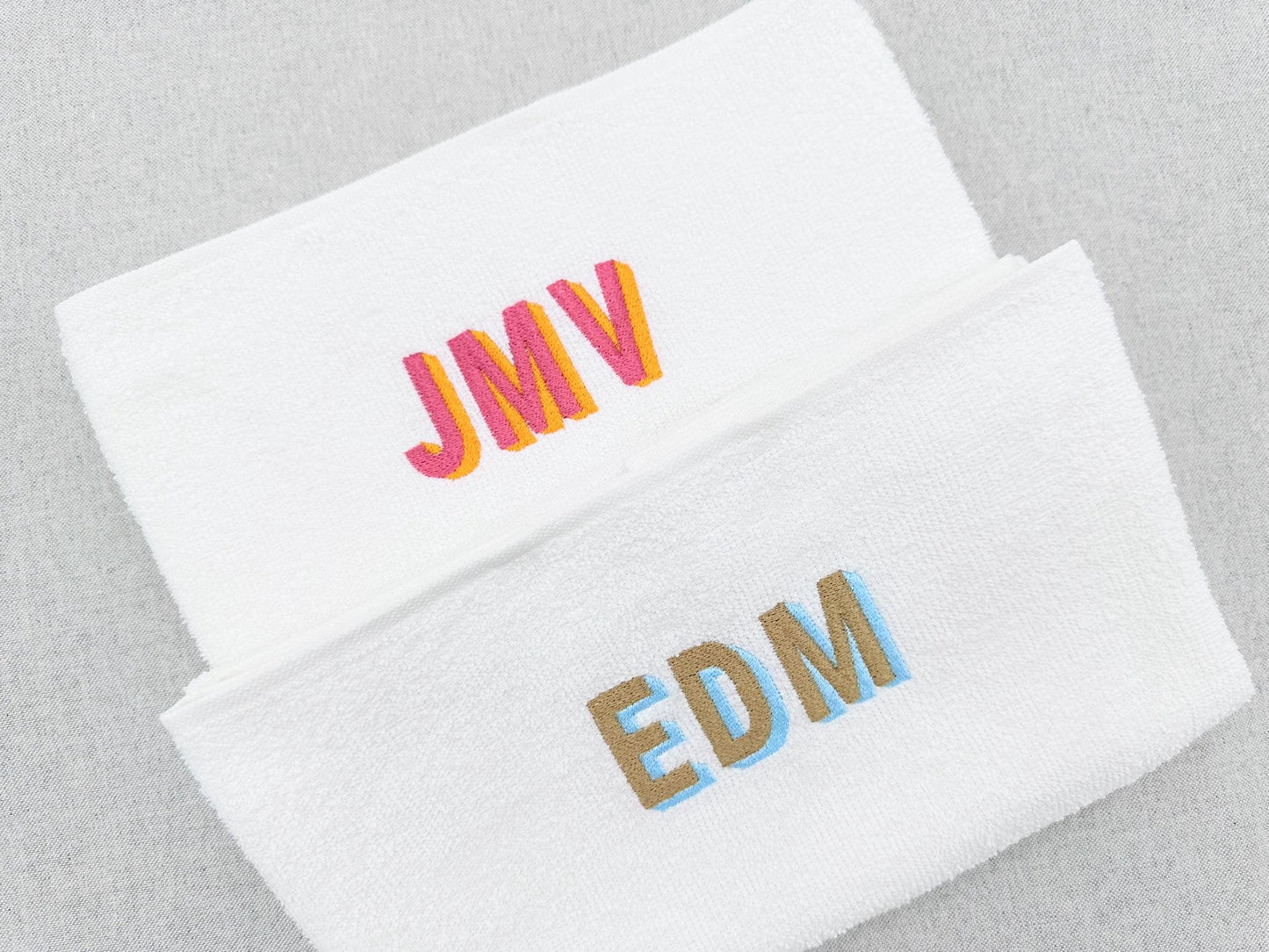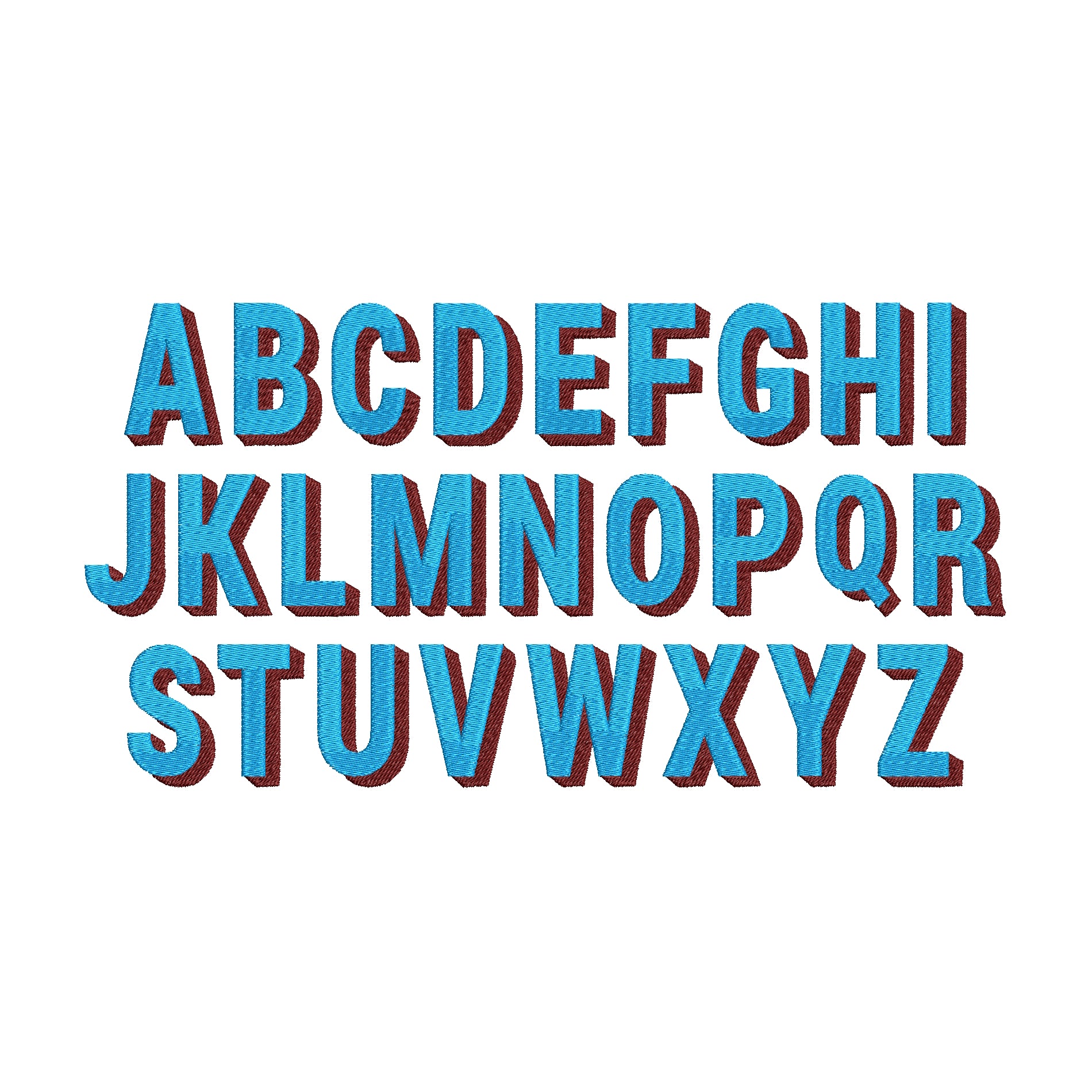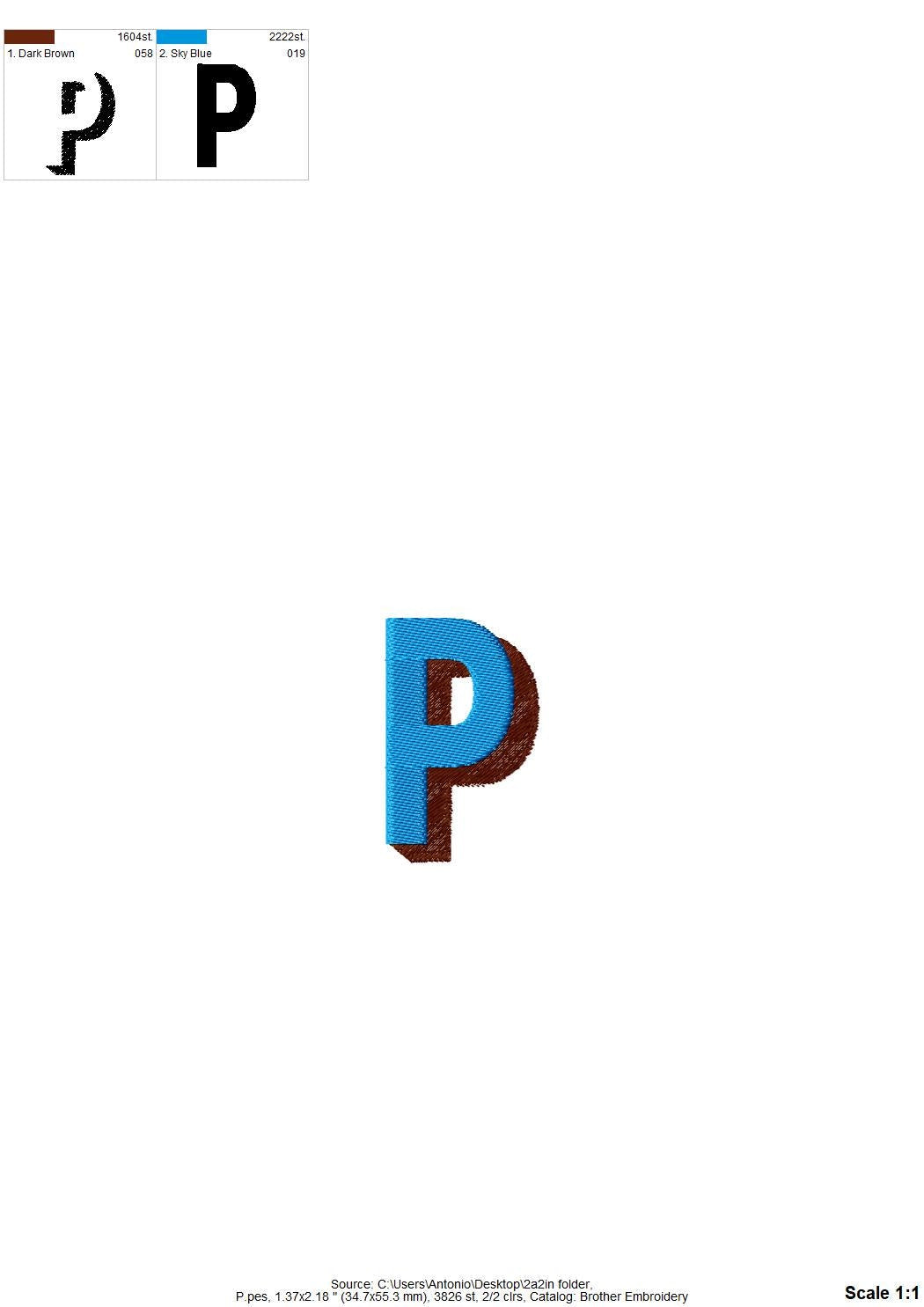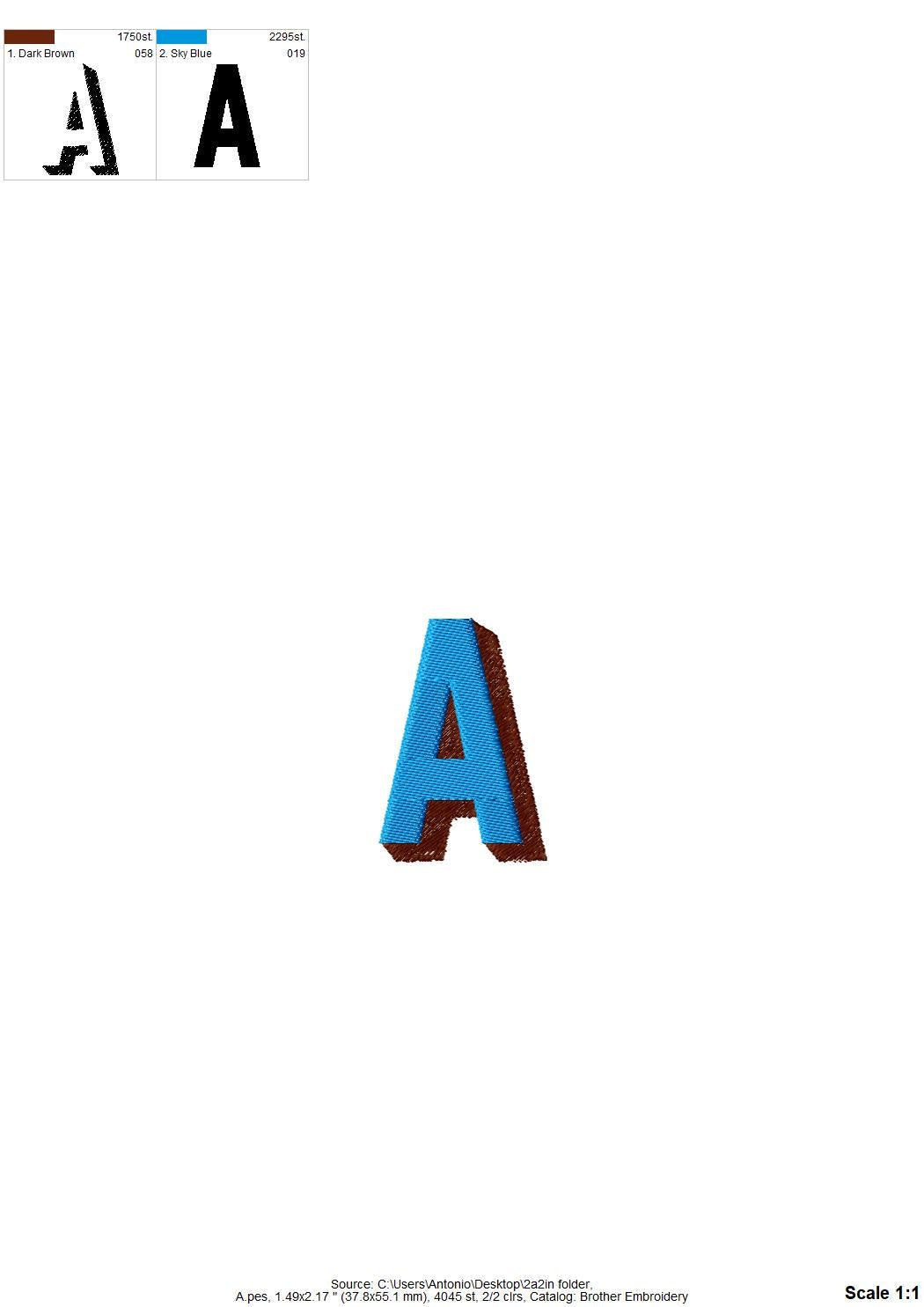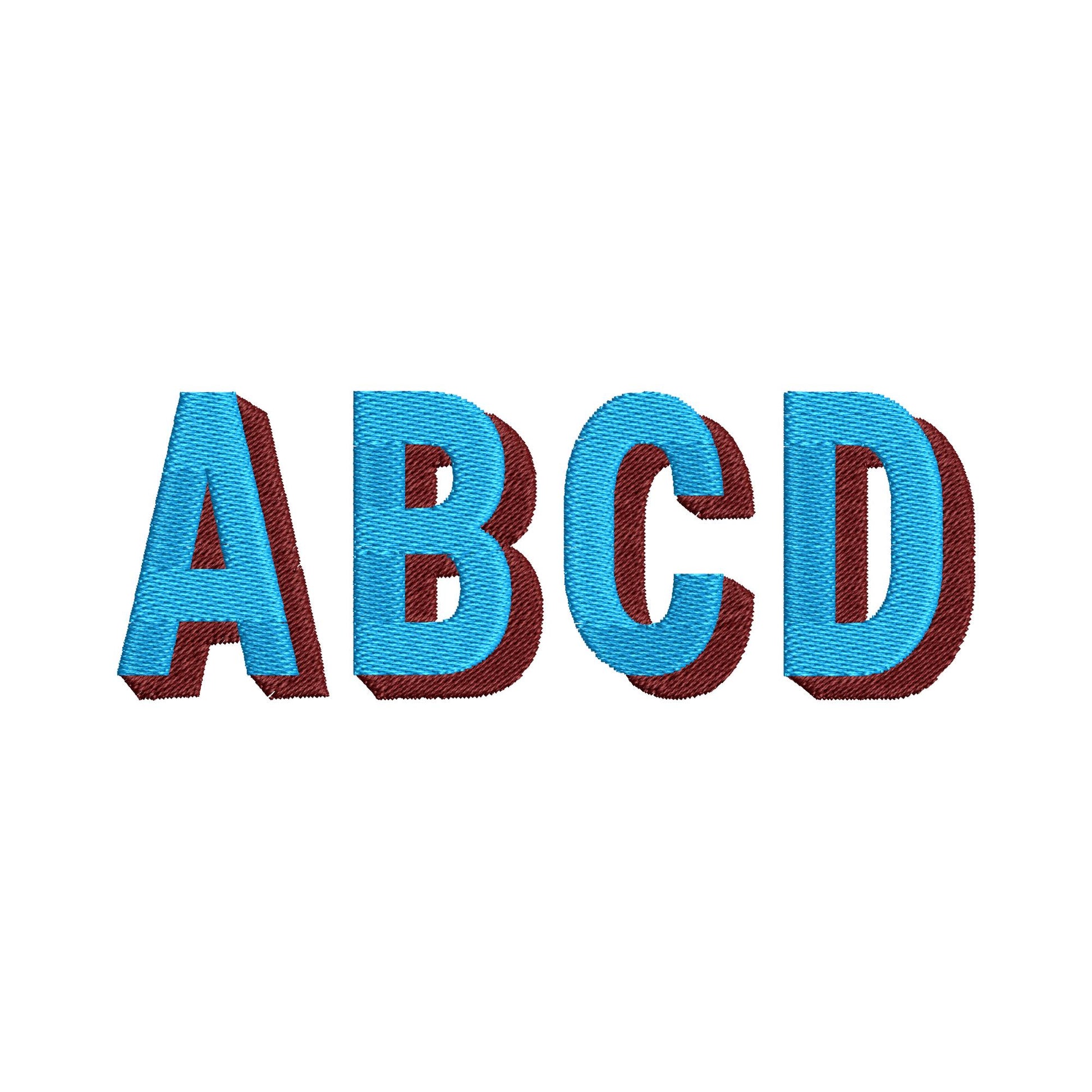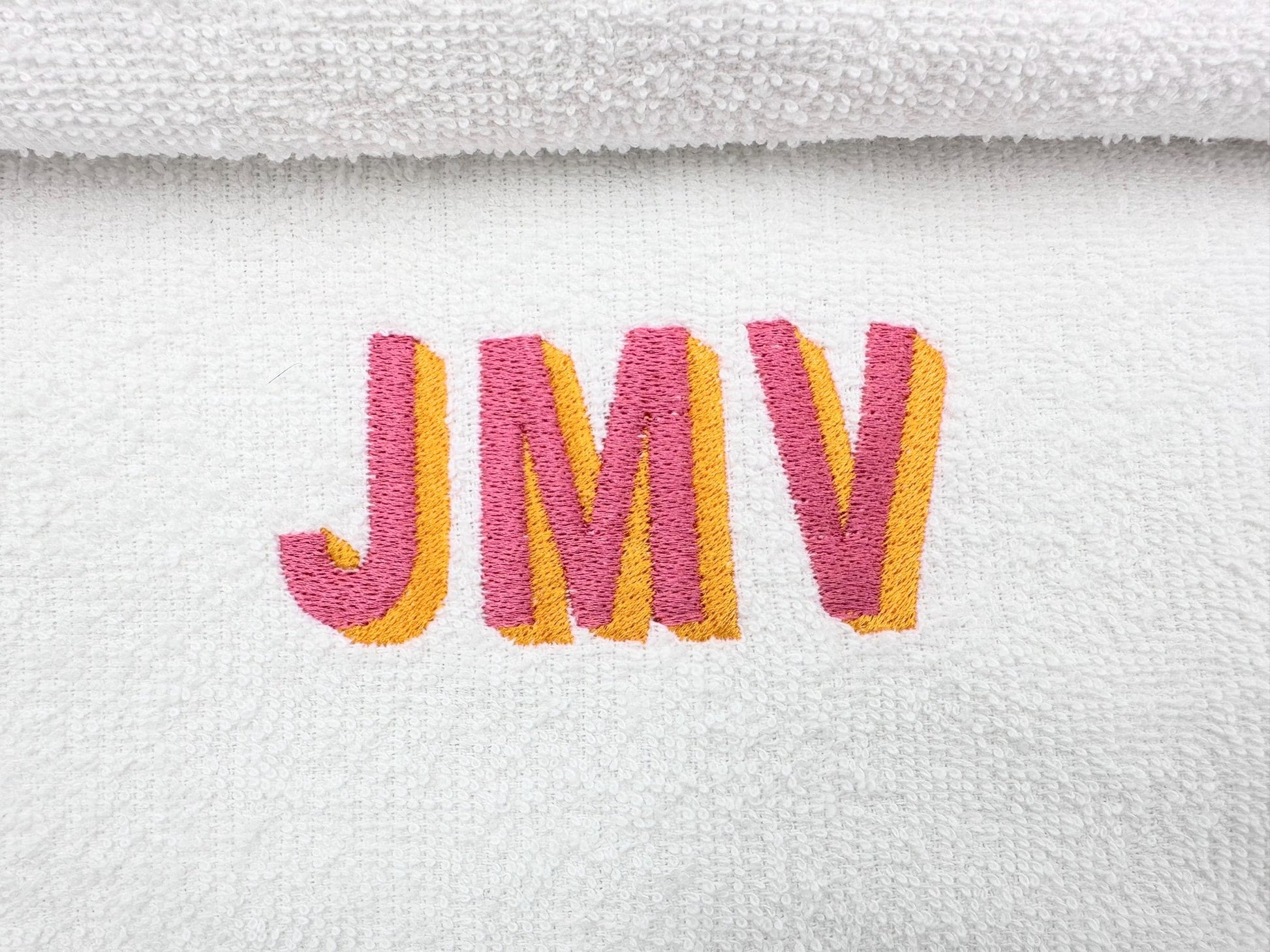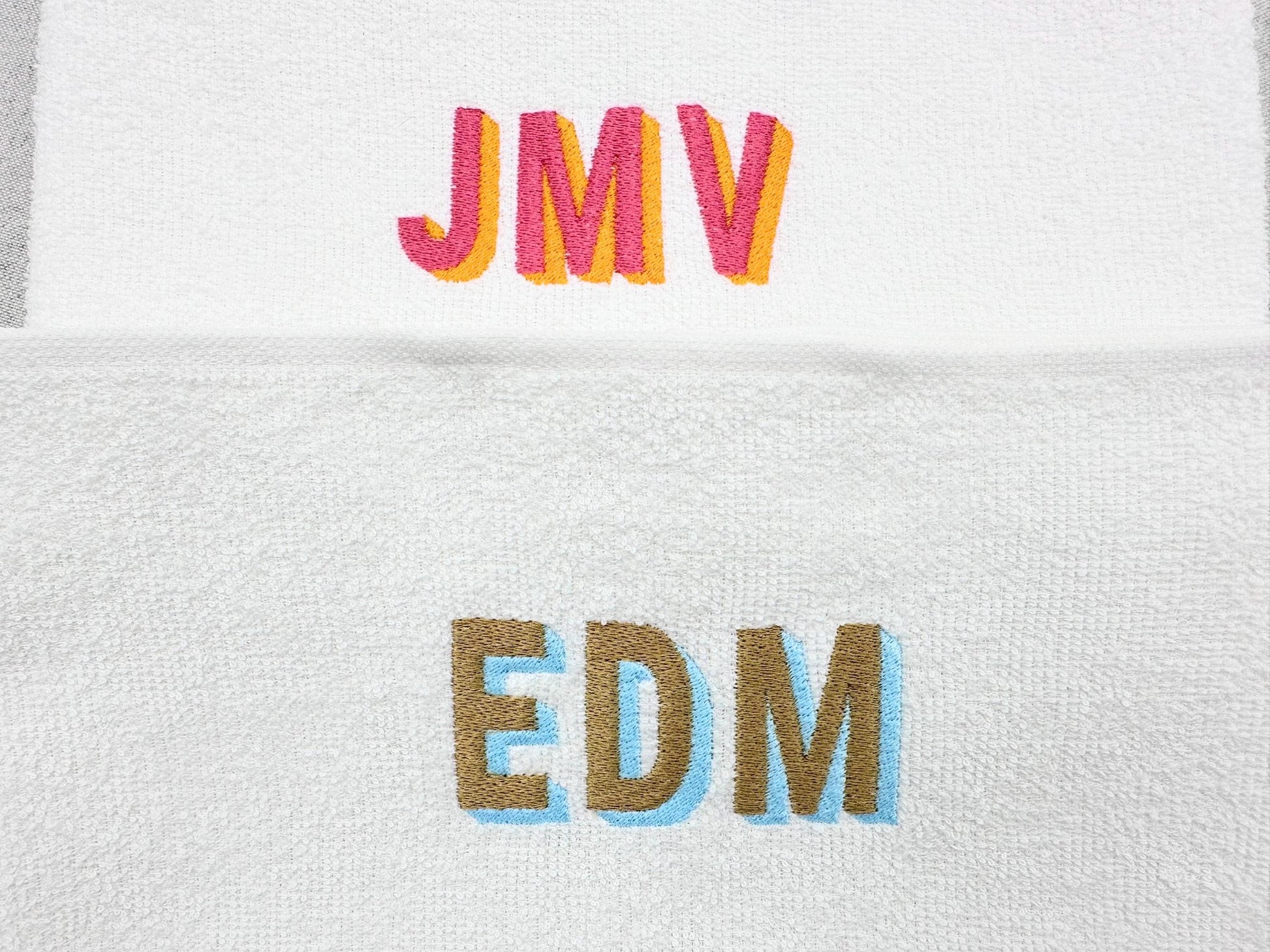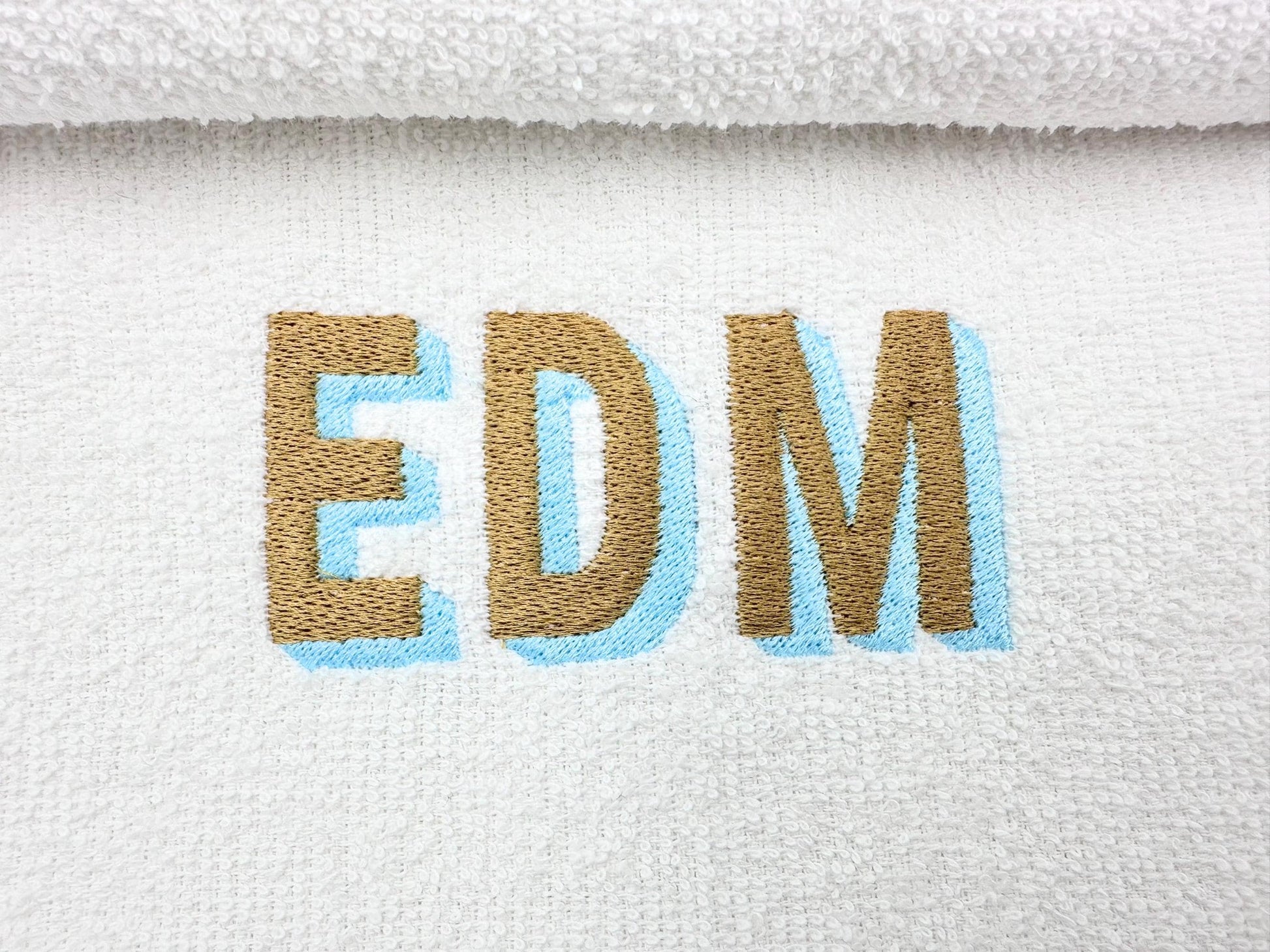
Bold Block Shadow Font
Or click to open the linkA bold block font with a shadow, in fill stitch. Strong for names, monograms and shirts.
Bold block letters in fill stitch with a shadow, 3 inches tall. Includes uppercase letters A to Z.
- Bold block shadow font, fill stitch
- Uppercase A to Z
- One size, 3 in